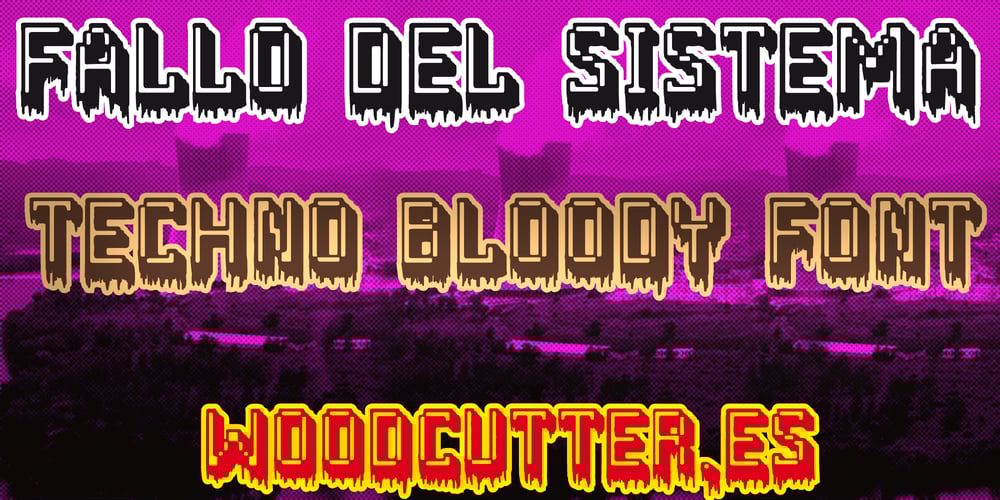
Fallo del Sistema Font Family was designed by Jordi Manero and published by Woodcutter. Fallo del Sistema contains 1 styles and family package options. “Fallo del Sistema” is a font with a pixel game appearance that incorporates a bloody horror touch and defined outlines. The letters look like they came from a retro game screen, with pixelated edges and dripping effects simulating blood, creating a dark and disturbing atmosphere. It is ideal for video game titles, horror movie posters, and any design seeking to combine the nostalgic style of retro games with a creepy, bloody vibe.